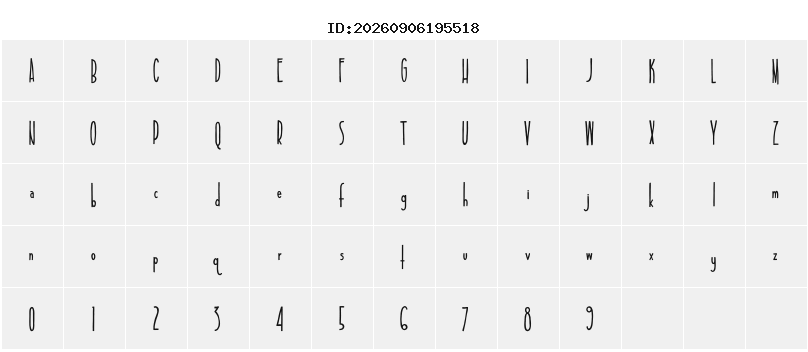
• Font Name: TALL & SLIM
• Full Font Name: TALL & SLIM
• Version: v1 August 20, 2014 - Andrew Hart (More fonts at Dirt2.com)
• Description: v1 August 19, 2014 by Andrew Hart - Dirt2.com
About TALL & SLIM.otf
TALL & SLIM.otf is a modern, elegant sans-serif font designed for ultimate readability and visual harmony. Perfect for branding, headlines, web design, and print materials.